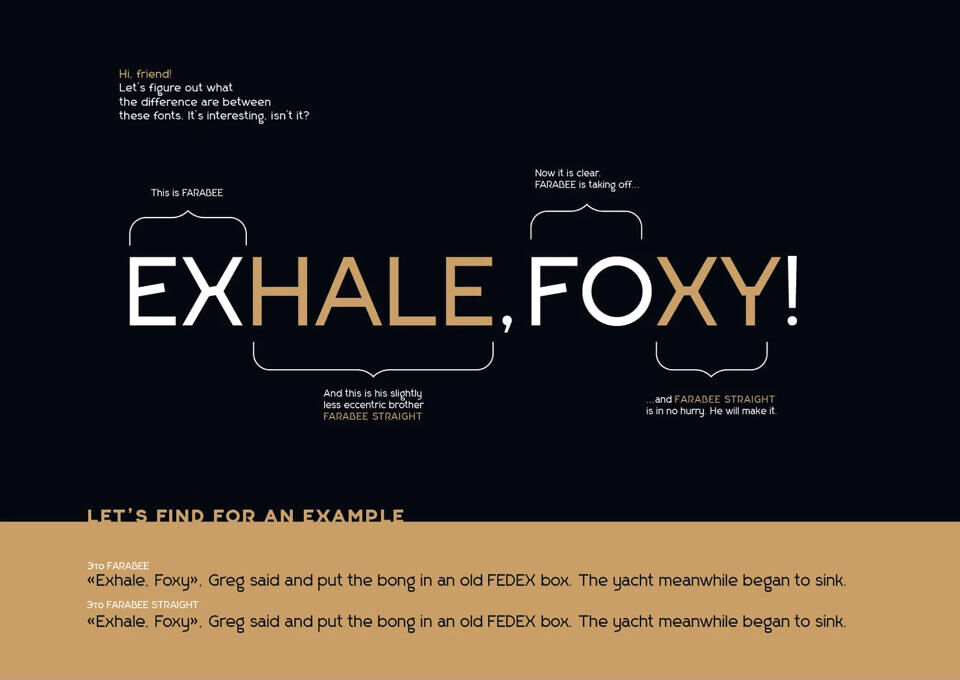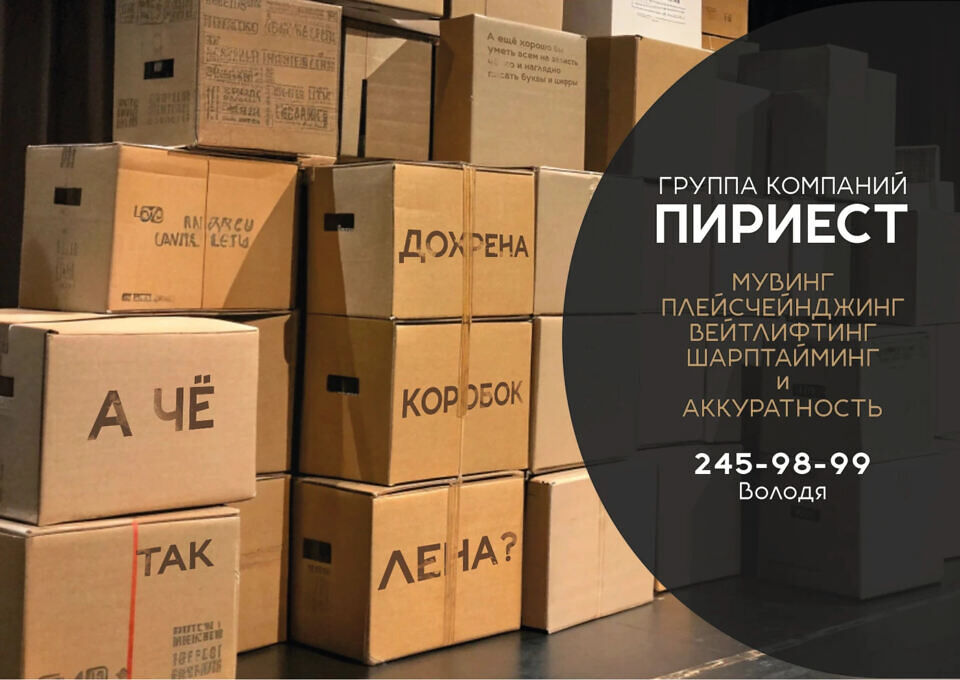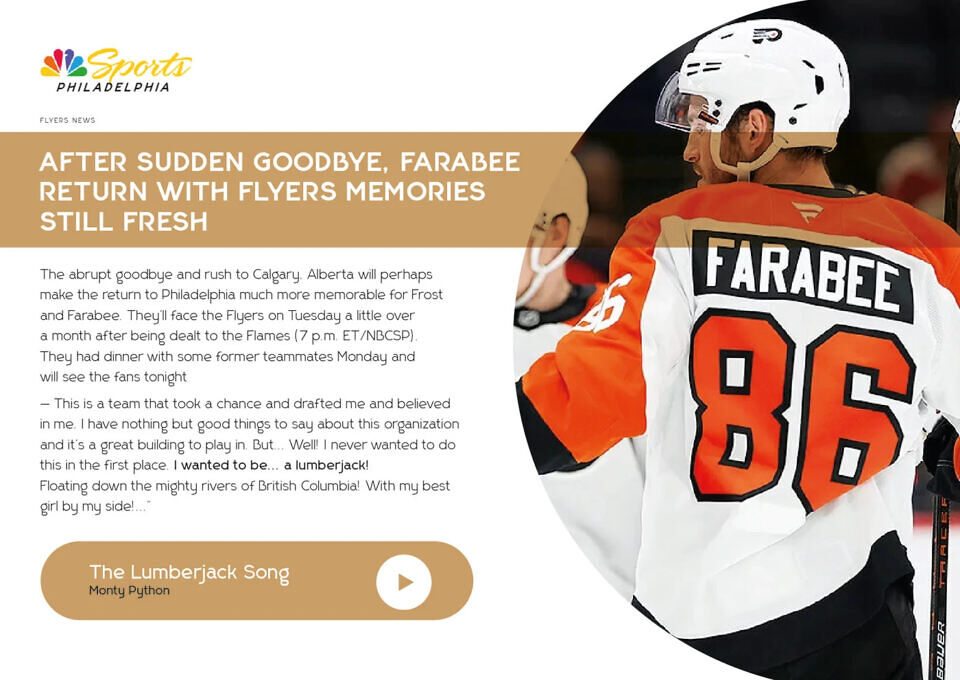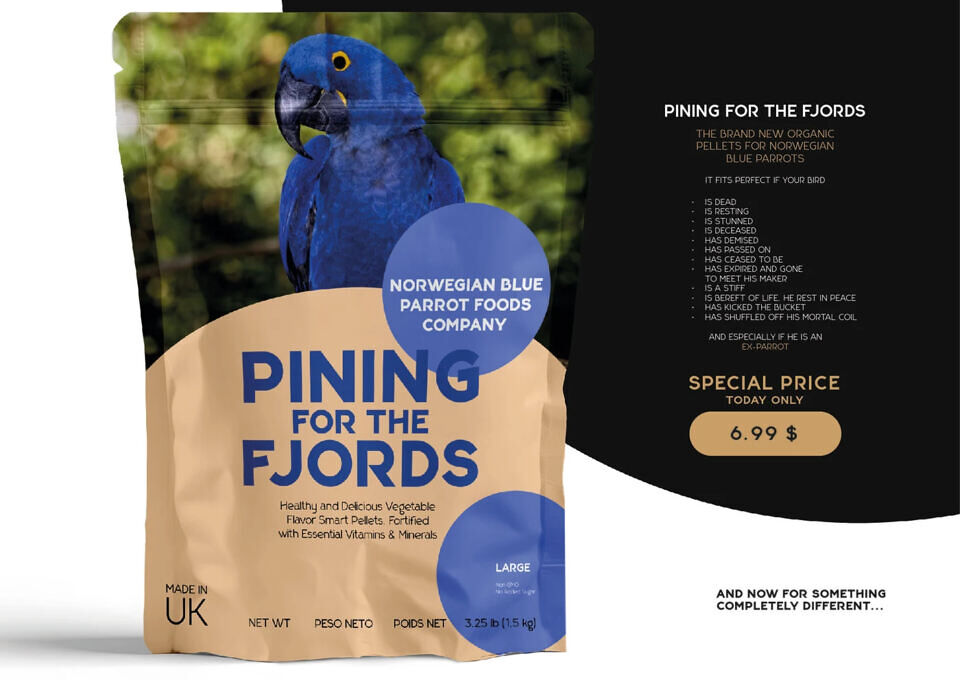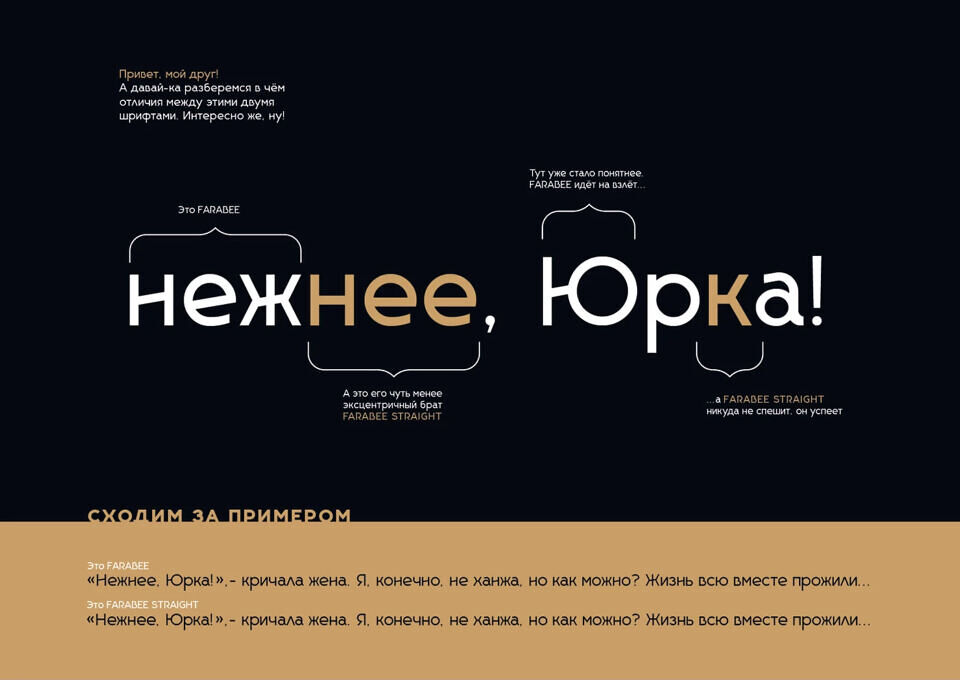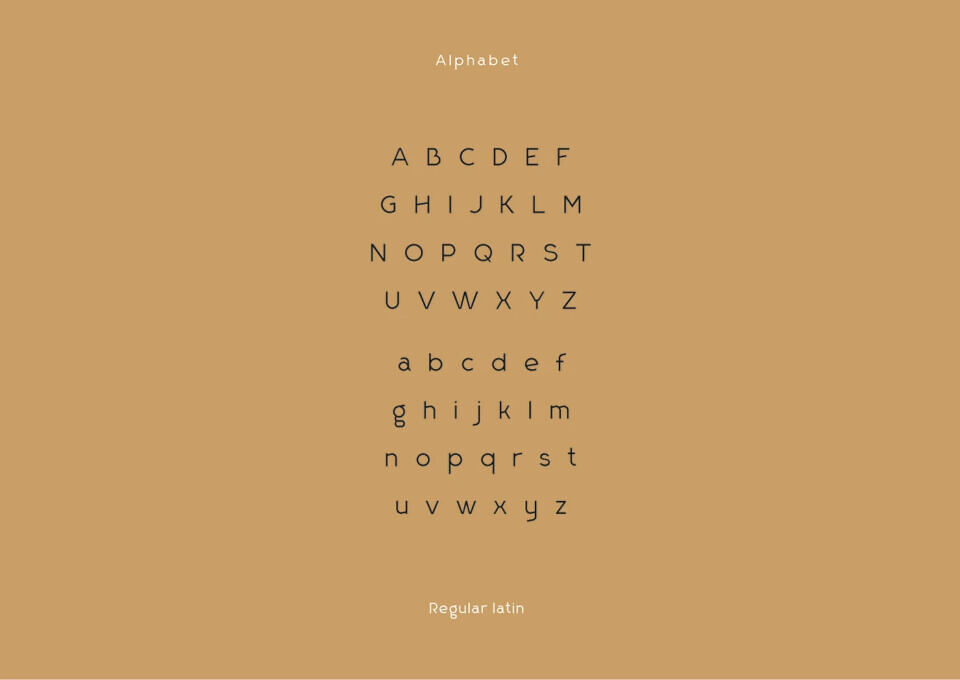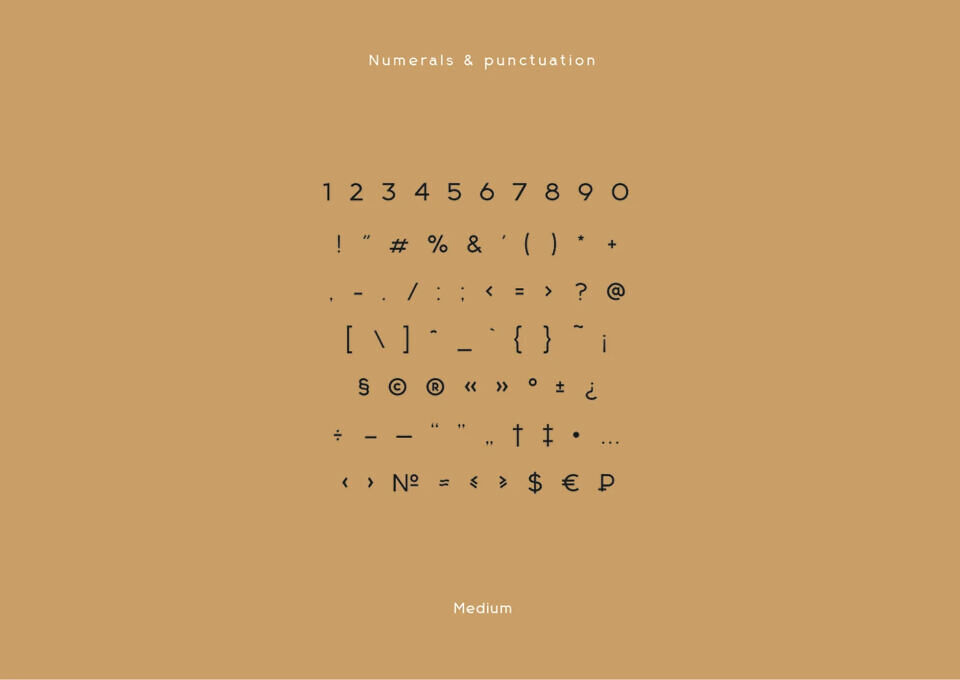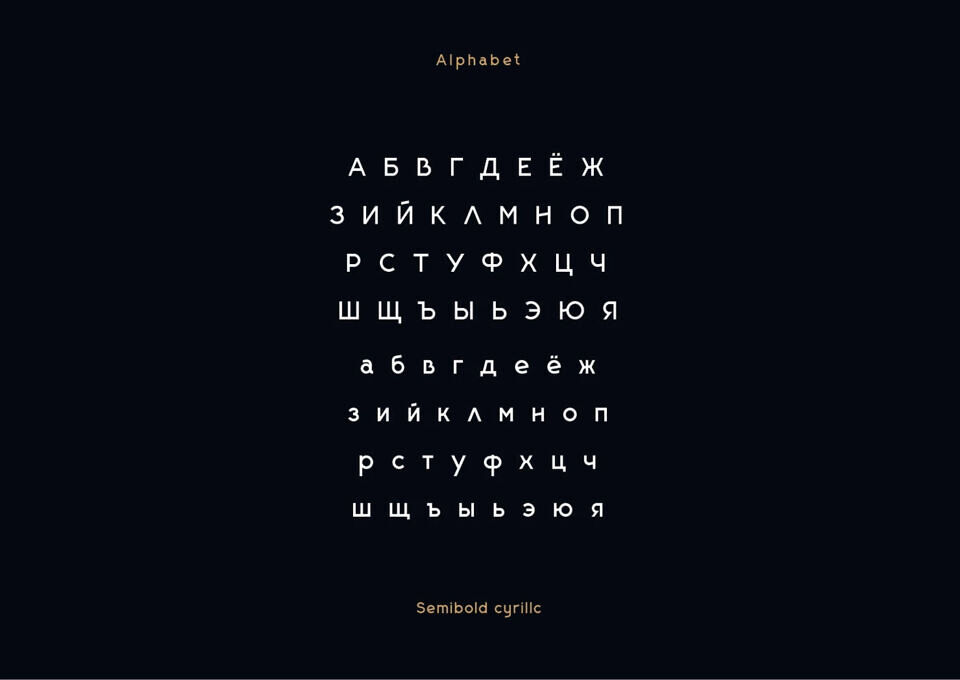
Farabee is a modern grotesque sans serif font designed by Dimitri Antonov. It features clean lines, subtle quirks, and a bold presence, making it ideal for branding, headlines, and editorial design.
The typeface includes 14 weights, over 300 glyphs, and approximately 1,600 kerning pairs, ensuring versatility and legibility across various applications.